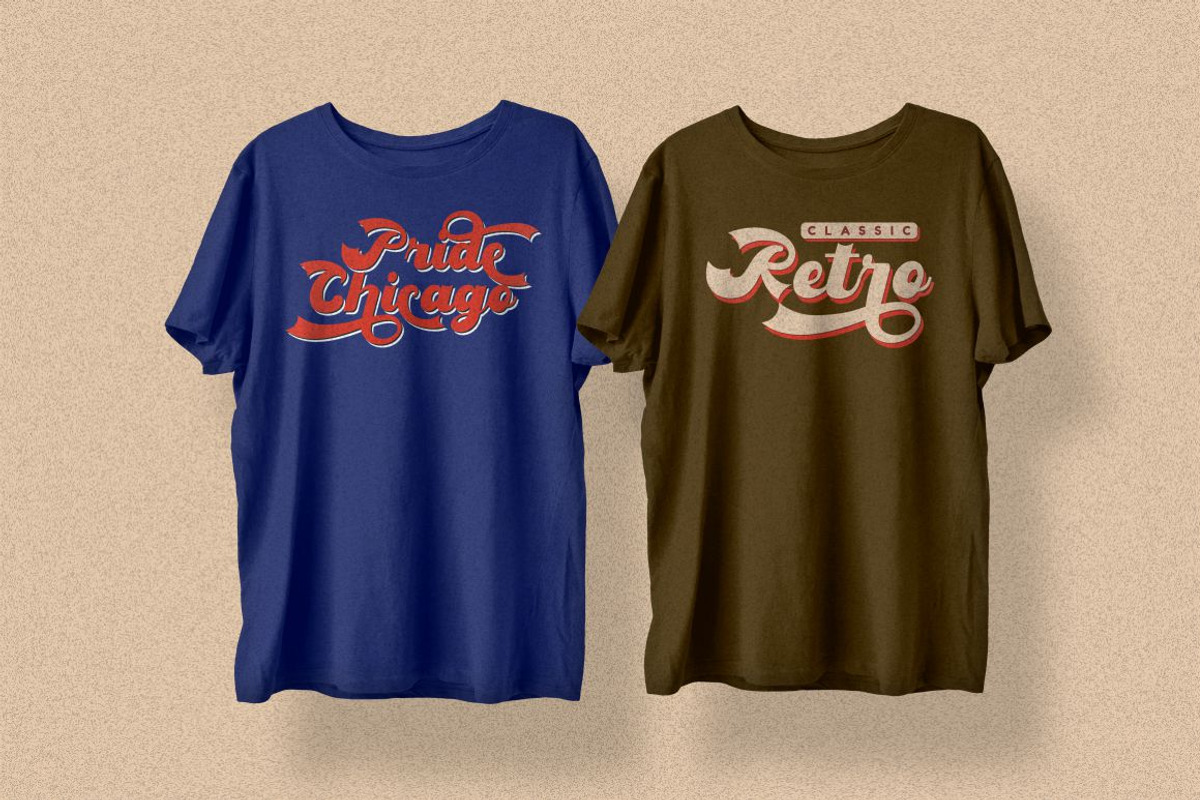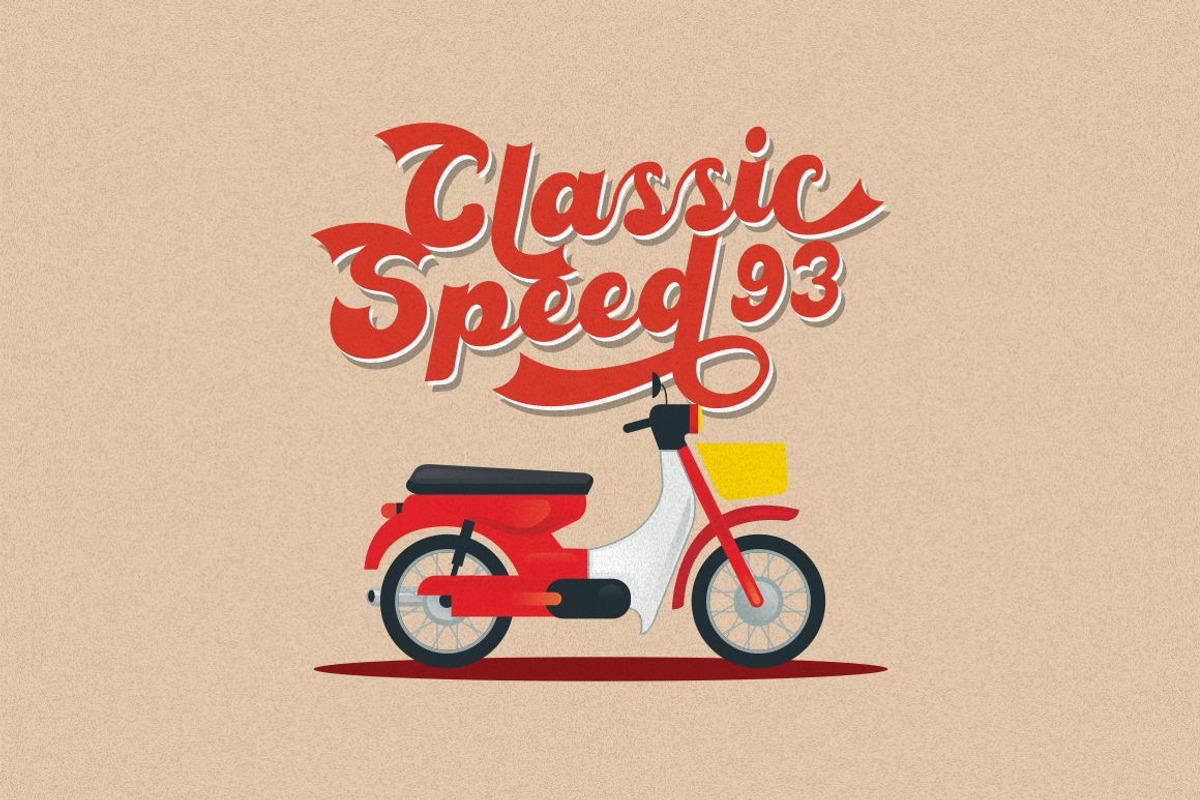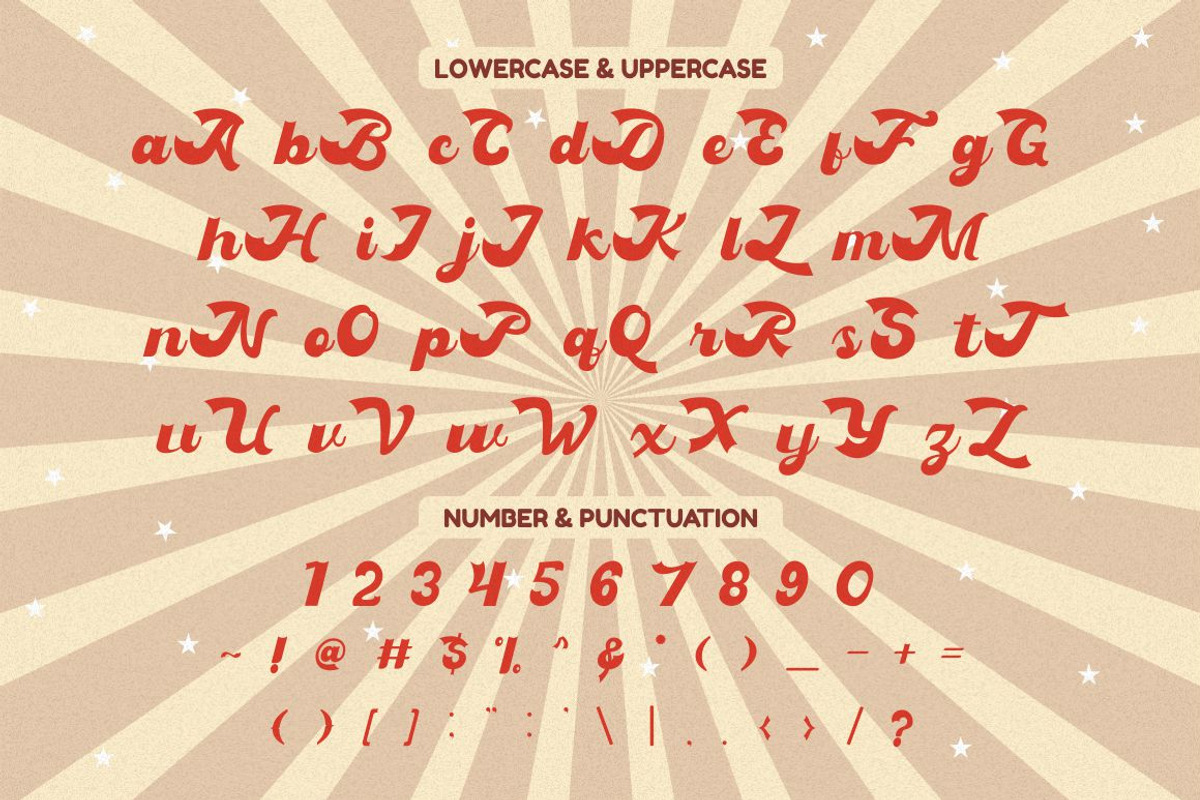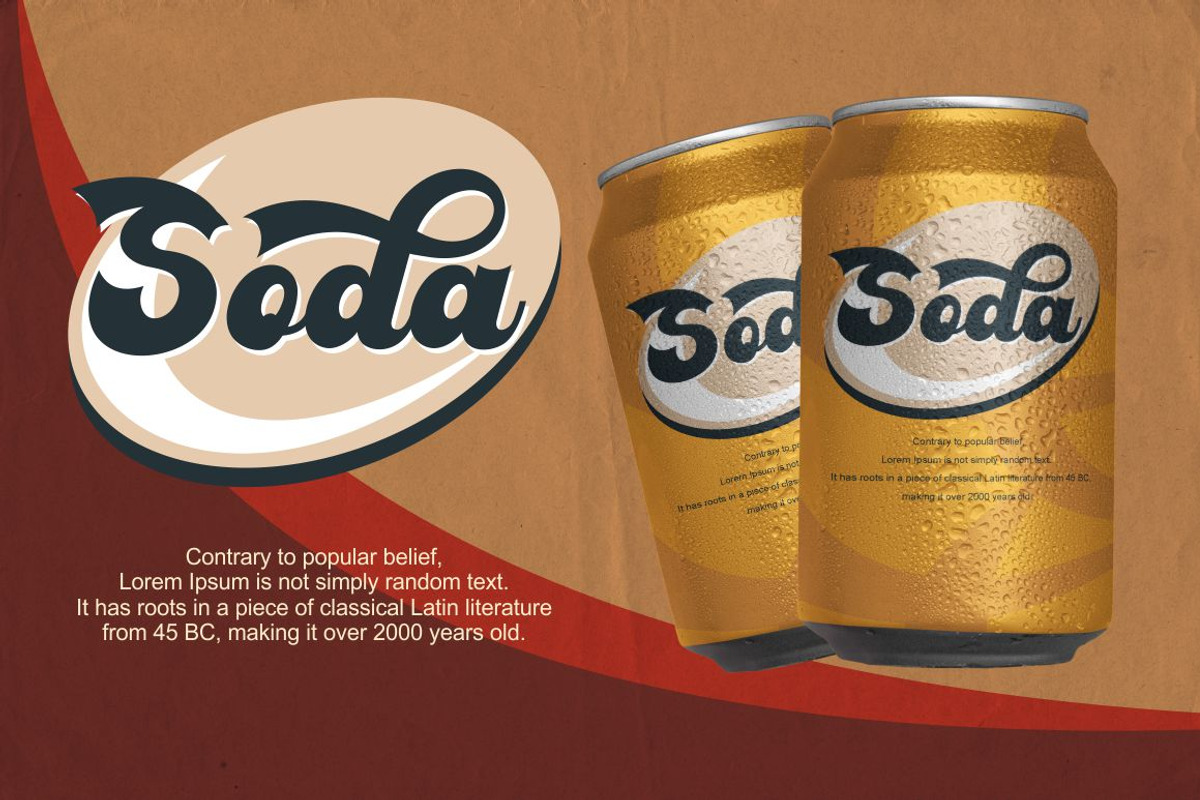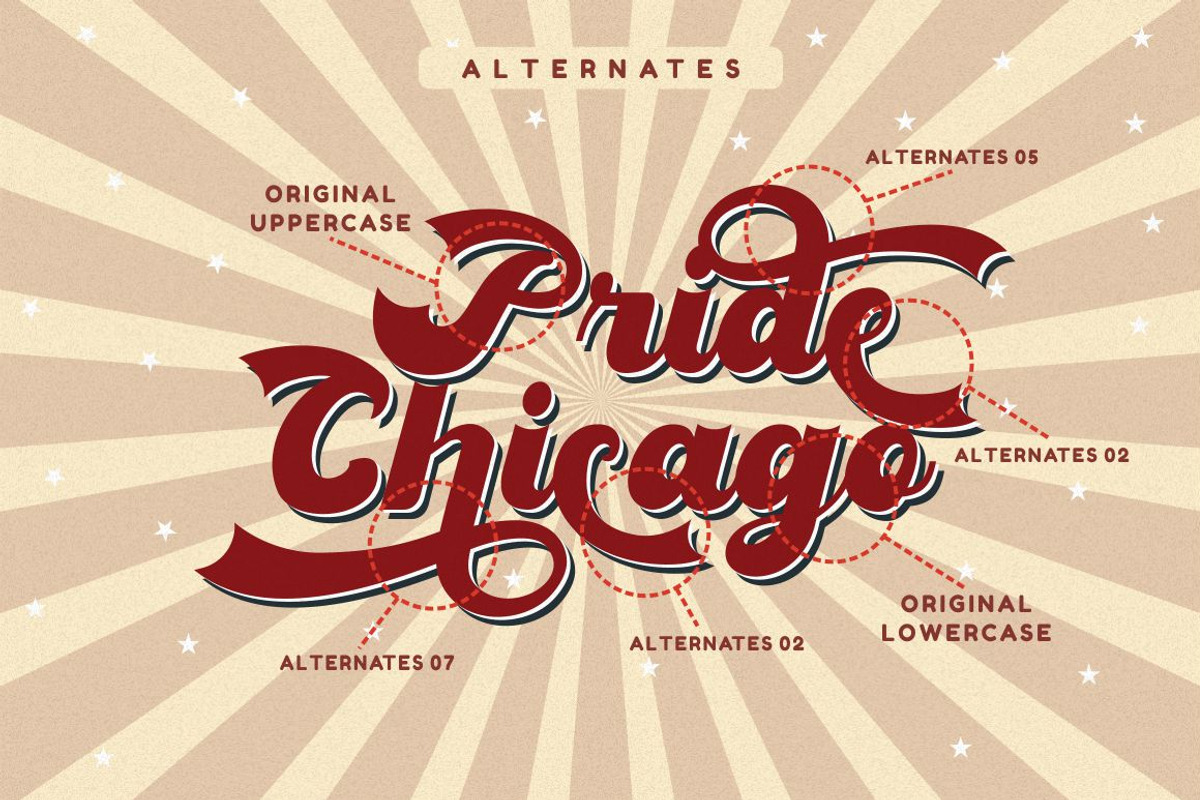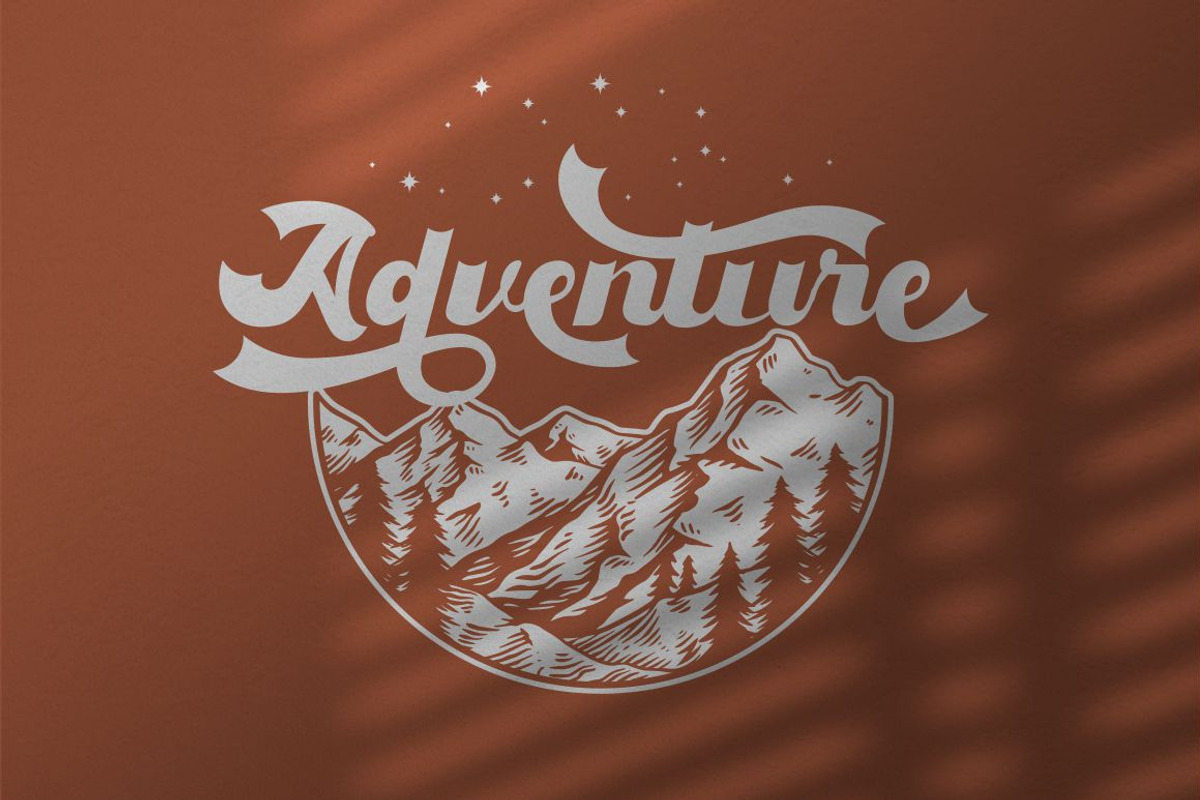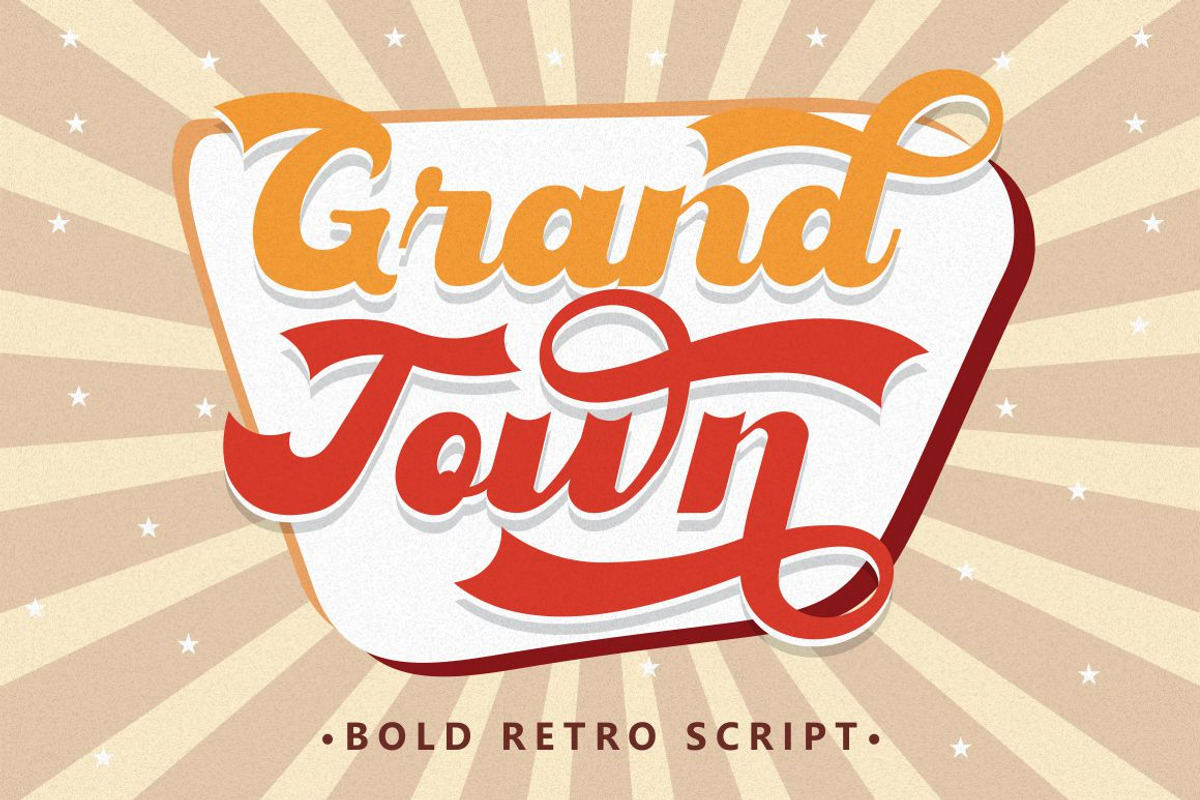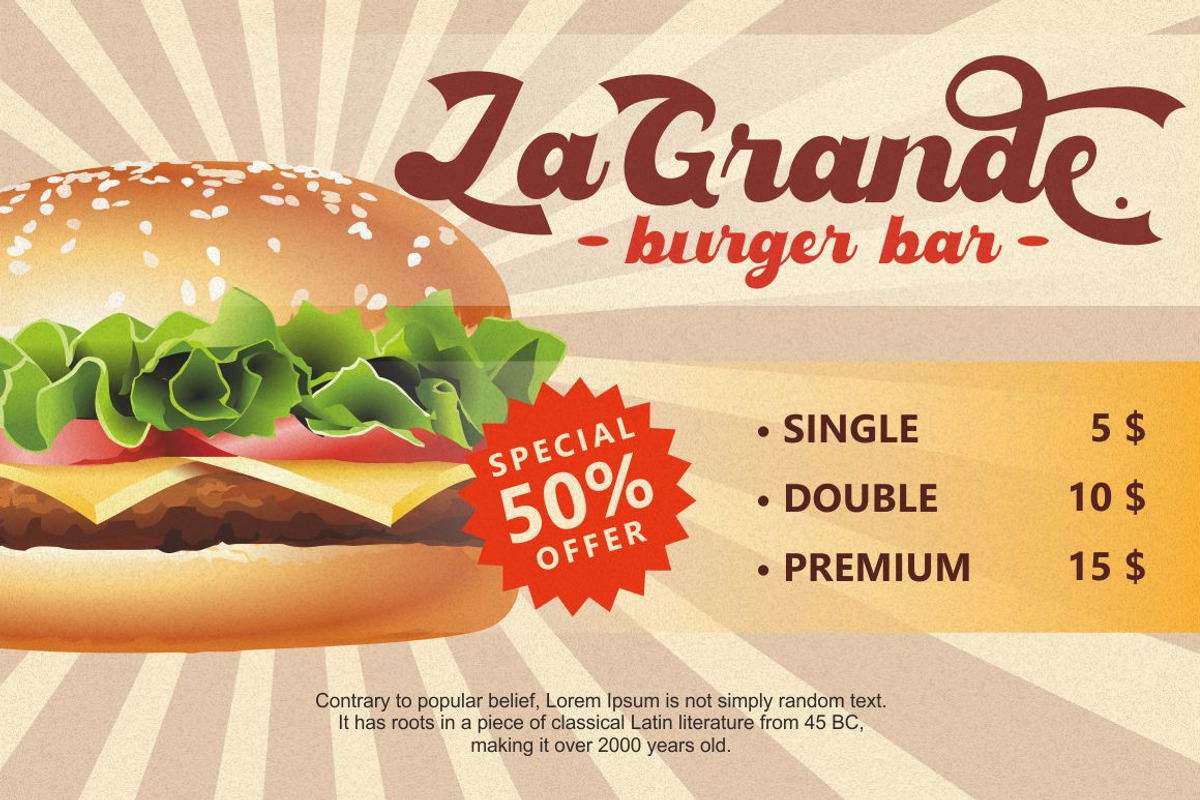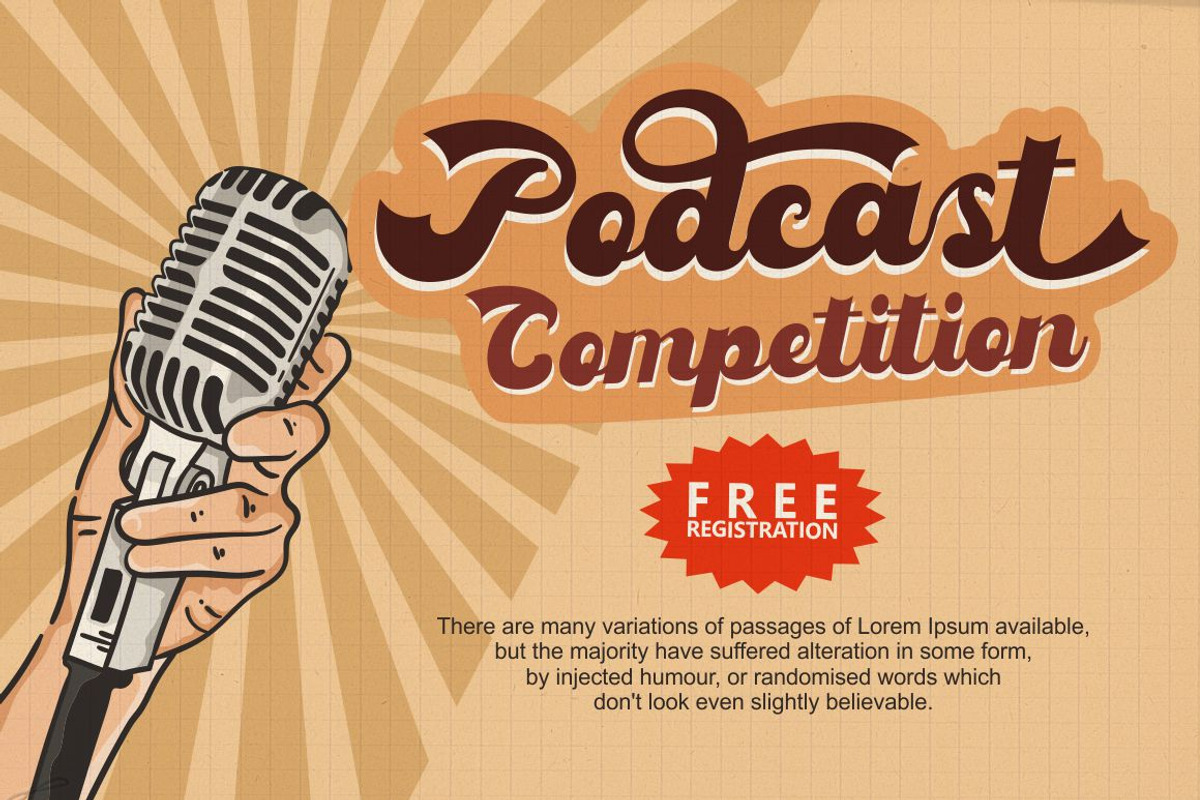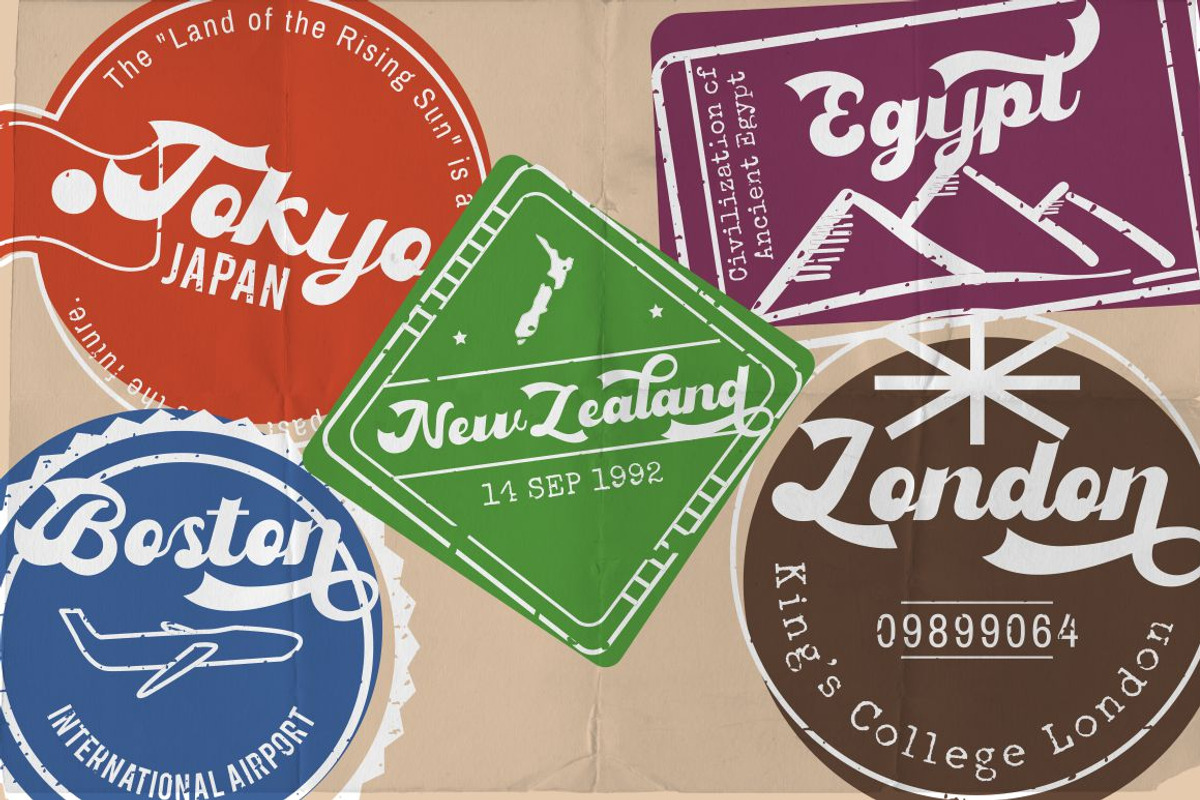
Grandtown - Bold Retro Script
Grandtown
Introducing Grandtown - retro bold script style font. Inspired from retro typography and lettering in the 70's and 80's combine with bold typography style. With this font will bring you back to 70s feel. Grandtown is perfect for vintage and retro design, badge, logos,t-shirt, poster, branding, packaging, signage, book coverand so much more!
Come with Opentype feature with a lot of alternates, its help you to make great lettering. This font is also support multi language.
- Number, Punctuation And Symbols
- Multilanguage Support.